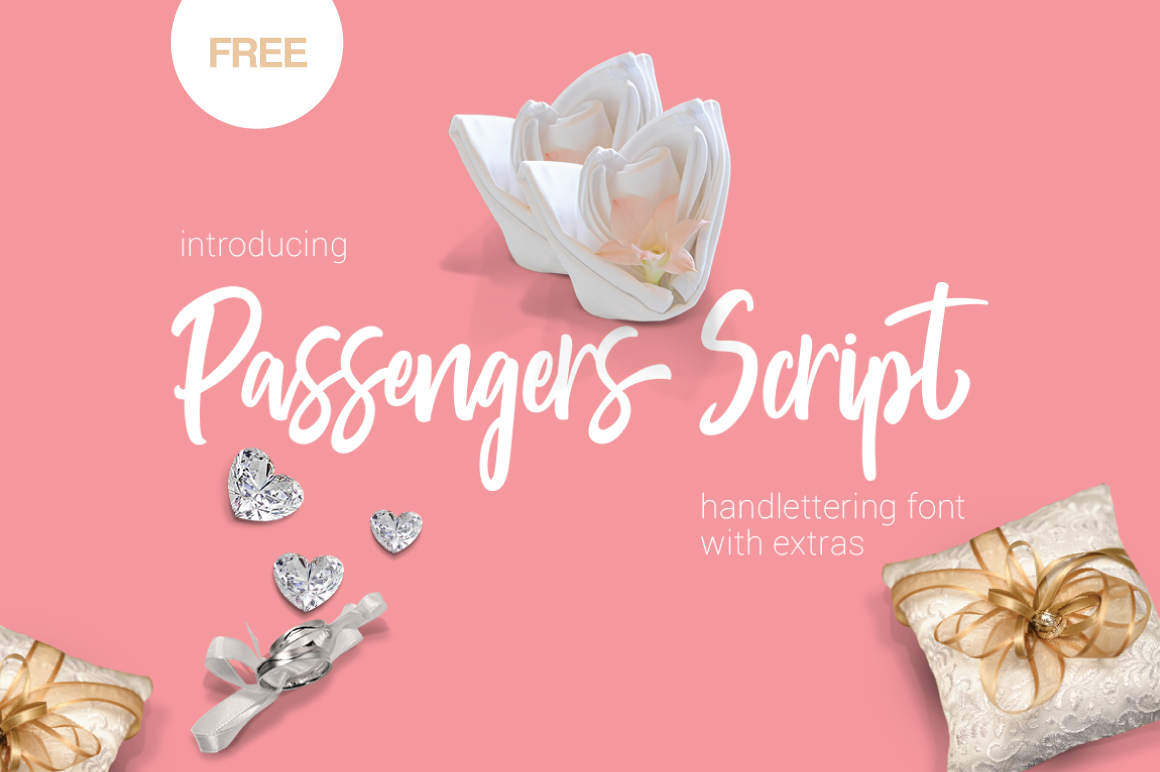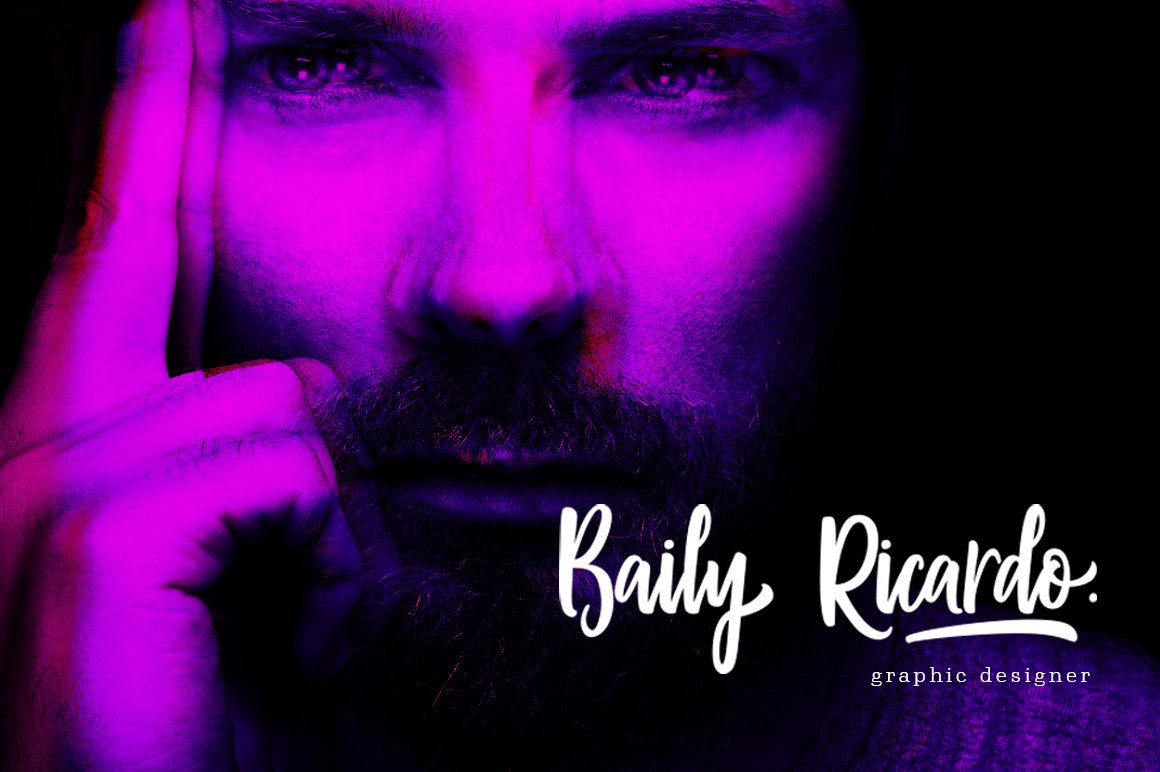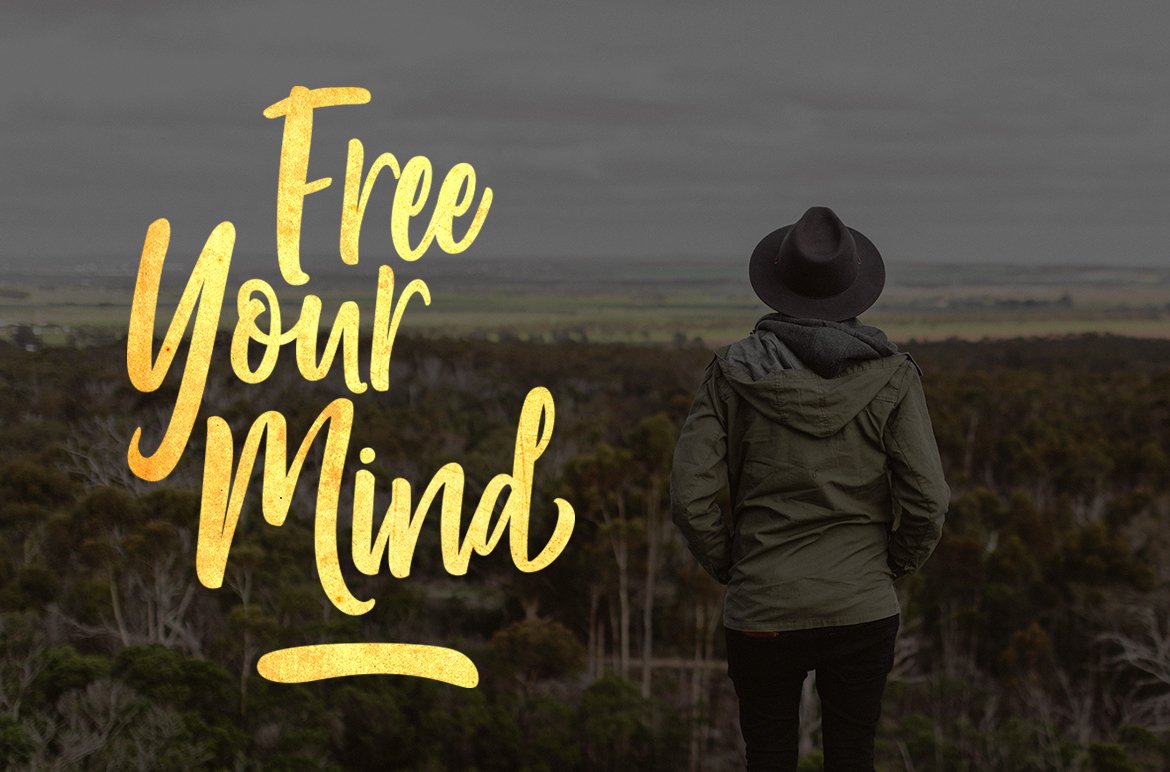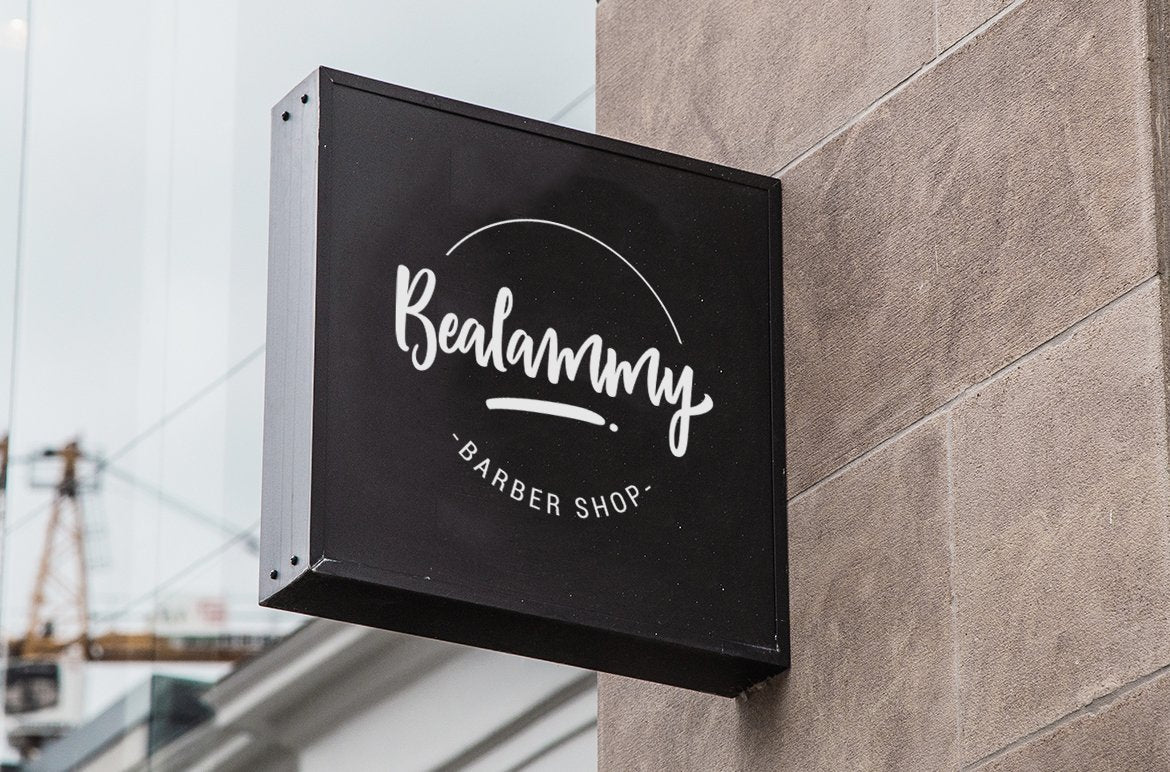
We're glad to feature this gorgeous passengers script font - free download. Download this free font from the original source of Pathero Studio. Easily amaze your audience with this fancy font and make your graphic designs pop up from the crowd.